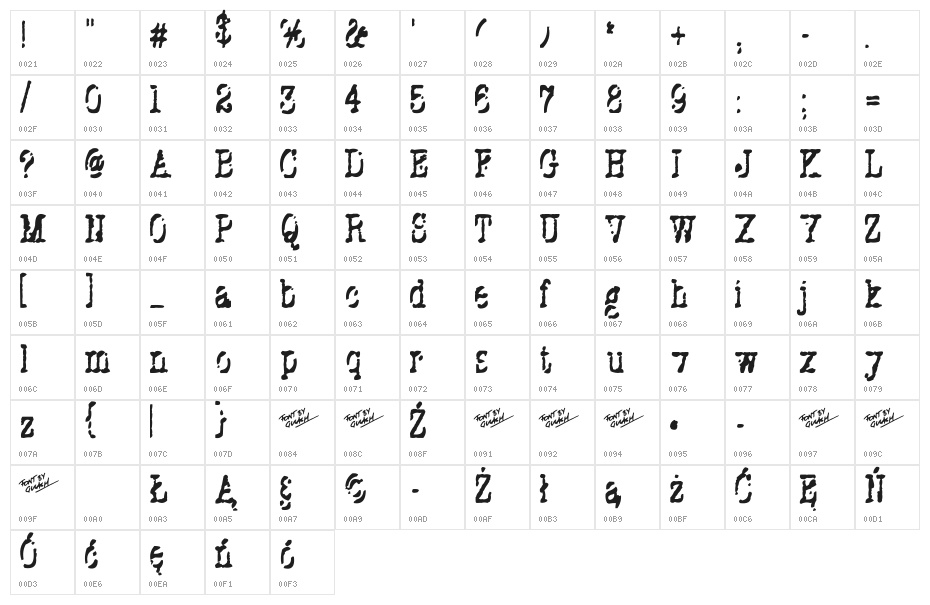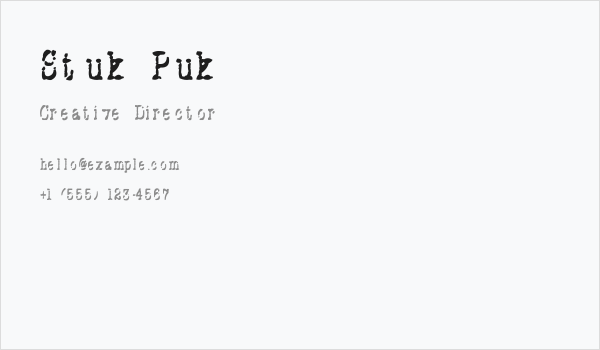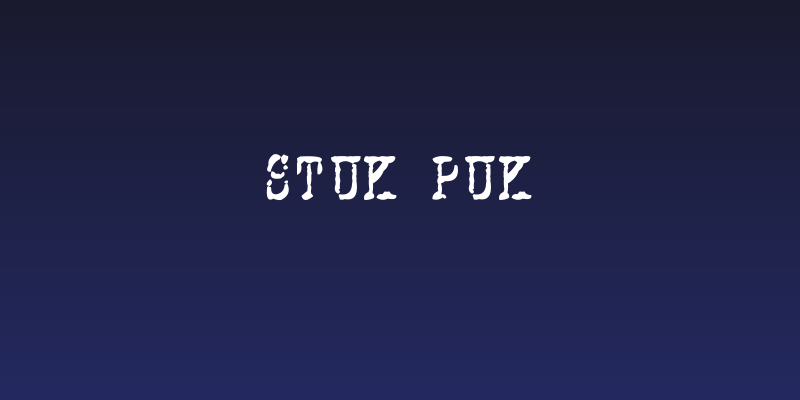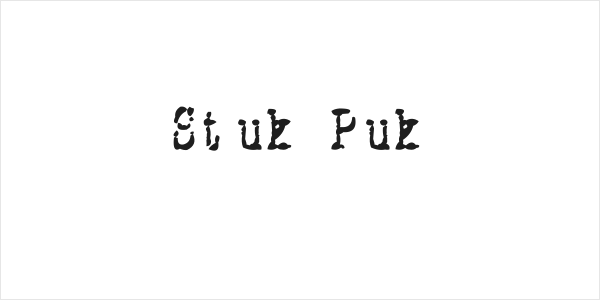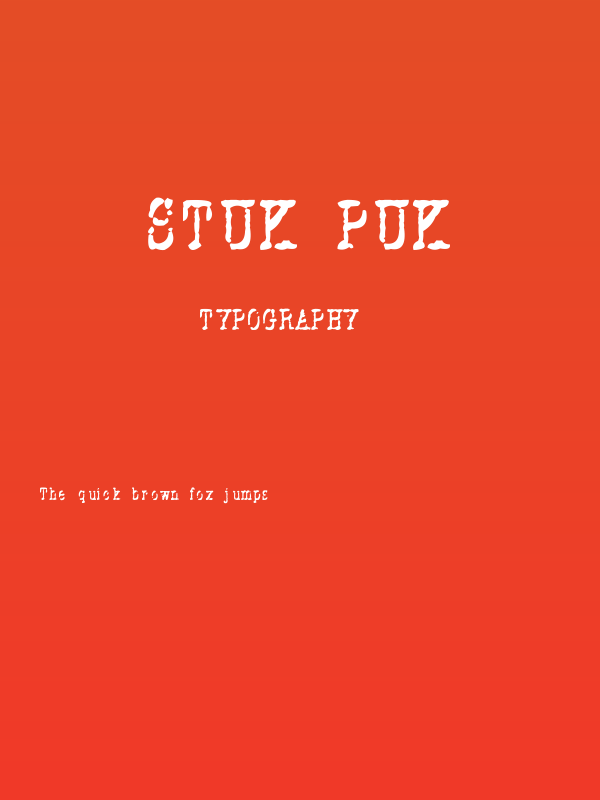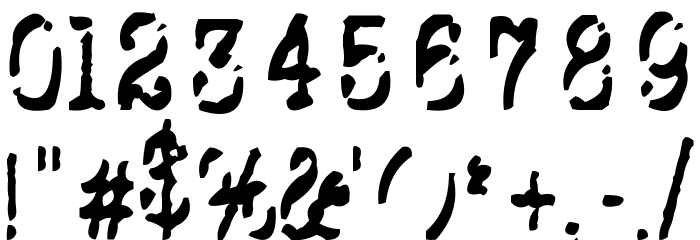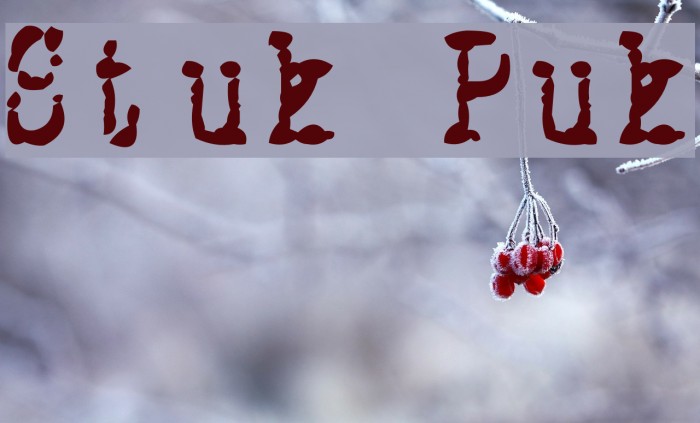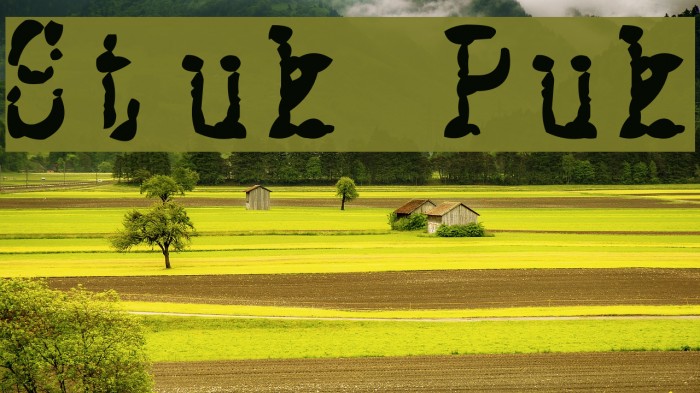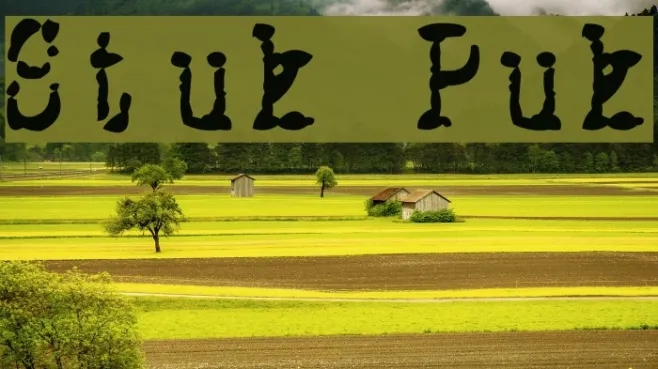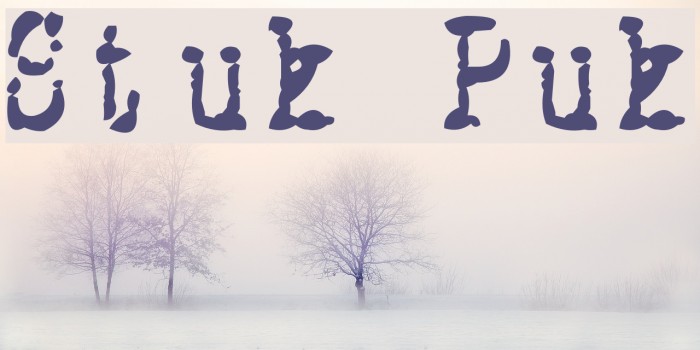
Stuk Puk Font
Stuk Puk Description
This font features a distressed and grungy aesthetic, characterized by irregular edges and a textured appearance. The uppercase and lowercase letters maintain a consistent style, with a bold and impactful presence. Numbers and special characters follow the same rugged design, making the font suitable for projects that require a raw and edgy look. The overall style is reminiscent of vintage or industrial themes, with a unique flair that stands out. The font's distinctiveness lies in its ability to convey a sense of authenticity and character, making it ideal for creative and artistic applications.
| Proposed Projects | Ideal for album covers, posters, branding for edgy products, and artistic projects. |